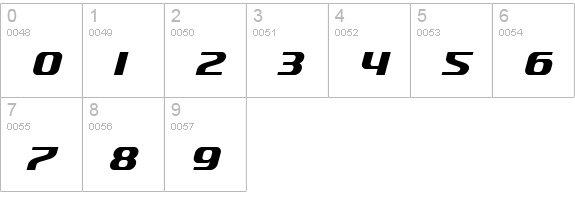
SF Quartzite Oblique Font Details
SF Quartzite Oblique is a distinctive, italic variant in the SF typeface family \xE2\x80\x94 well suited to design and typography projects.
SF Quartzite Oblique is a striking and modern font that effortlessly combines elegance with a touch of uniqueness. Its oblique design adds a subtle slant to the letters, giving them a sense of dynamism and movement. This font is perfect for adding a contemporary and sophisticated touch to any project, whether it be for graphic design, branding, or advertising. One of the standout features of SF Quartzite Oblique is its versatility. It is equally well-suited for both headline and body text, making it a reliable choice for any typographic need. The clean and crisp lines of this font ensure legibility at any size, while its stylish and sleek appearance adds an extra layer of sophistication to your designs. What makes SF Quartzite Oblique even more impressive is that it is freely available to download at FontsMarket.com. This means that you can bring this stunning font into your creative arsenal without any cost. Whether you are a professional designer or an aspiring creative, having access to a high-quality font like SF Quartzite Oblique can make a significant difference in the impact and professionalism of your work. So why wait? Go ahead and download SF Quartzite Oblique from FontsMarket.com today and unlock the potential to create stunning and captivating designs that are sure to leave a lasting impression.